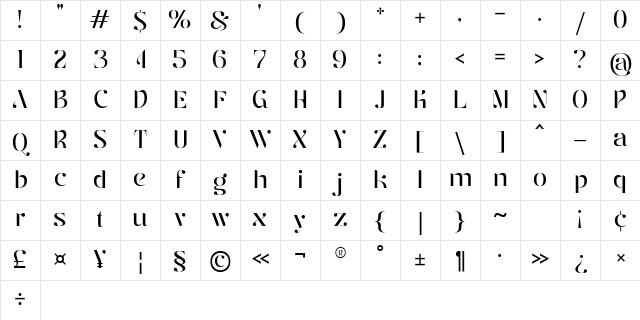
Stancilo Regular
Foundry: Ardyana Types Studio
Designer: Ardyana Putra
Design Context for Stancilo
Stancilo is a composed and adaptable typeface that performs quietly and consistently across a wide range of design contexts.